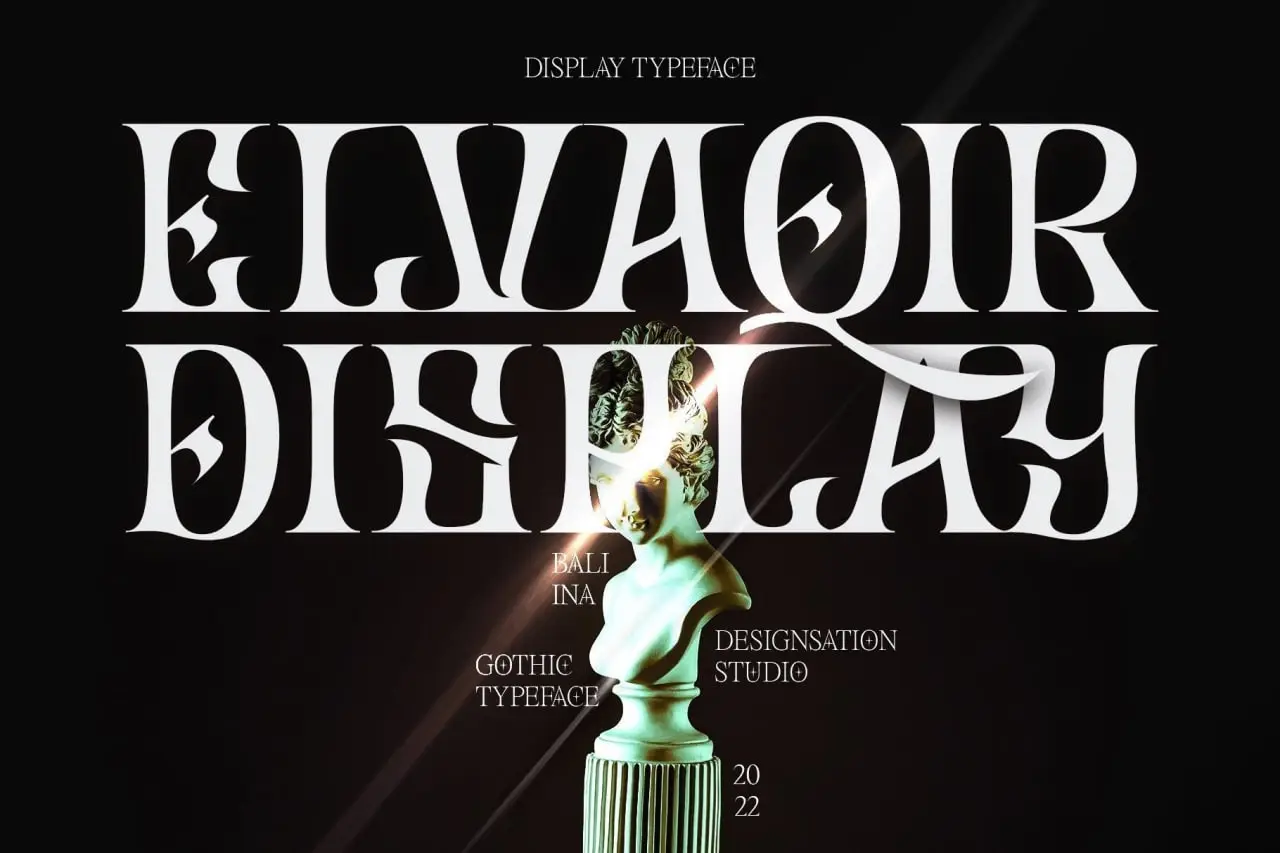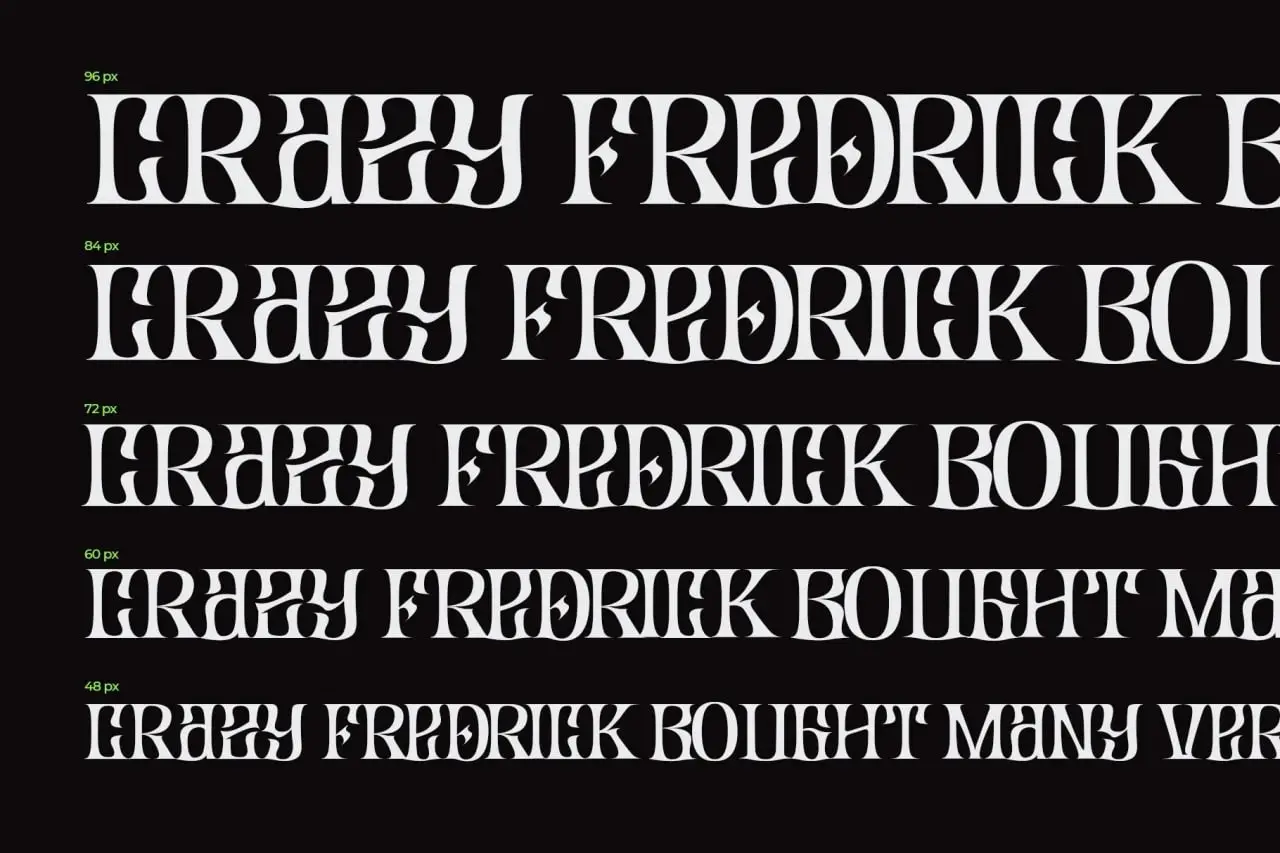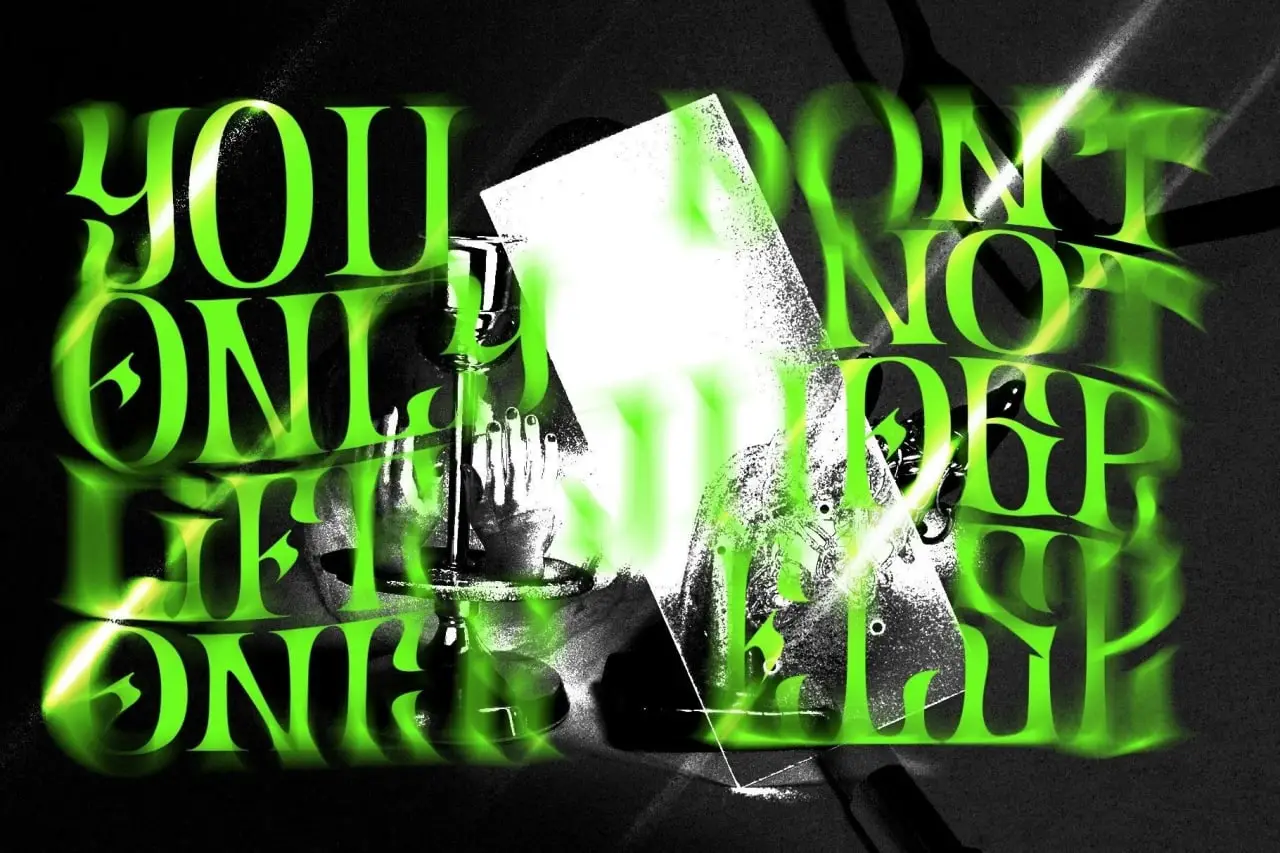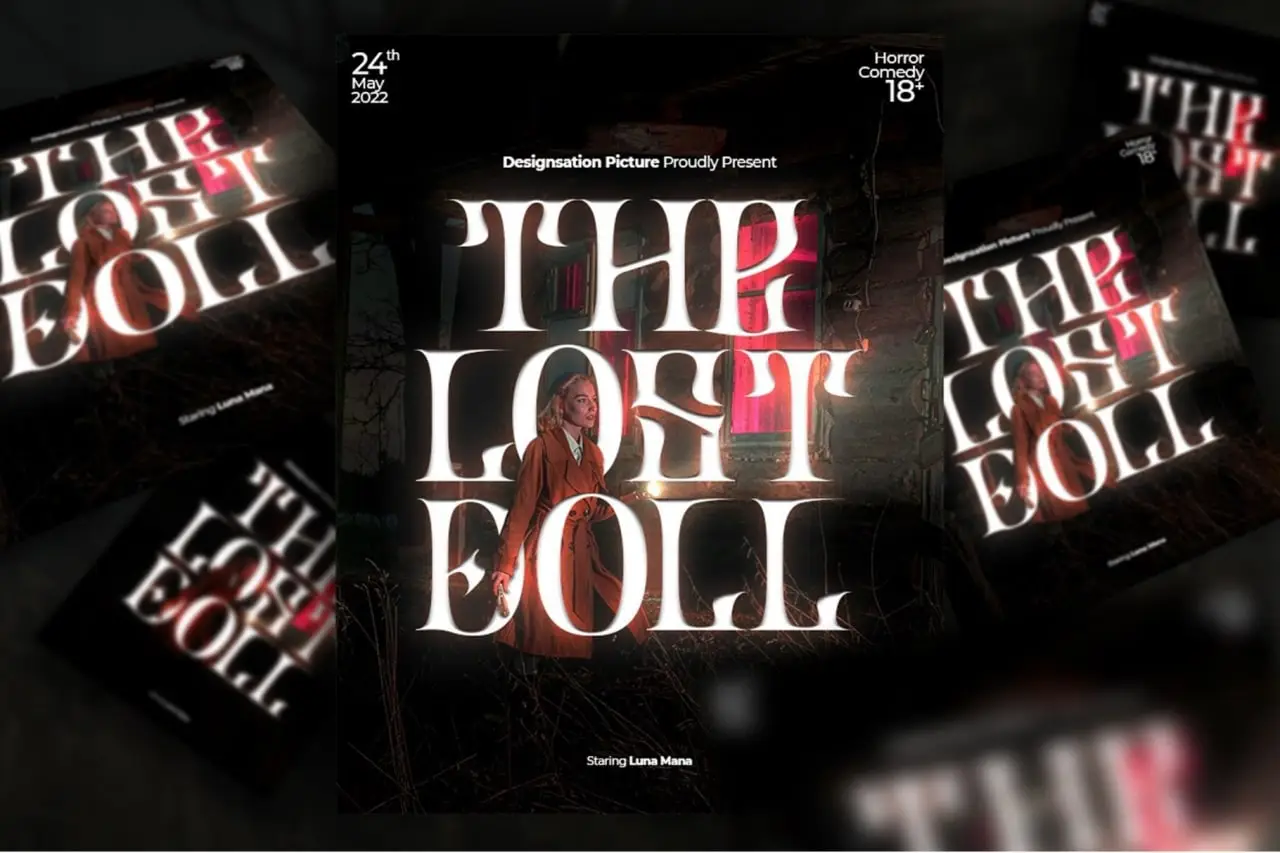
Elvaqir Font By Designsation
Introducing the Elvaqir Font by Designsation, a beautifully crafted typeface that blends elegance with modernity. This font is perfect for a variety of design projects, from branding and logos to web and print applications.
• Ideal for creating eye-catching logos and branding materials
• Perfect for web design, ensuring readability and style
• Great for print projects like business cards and brochures